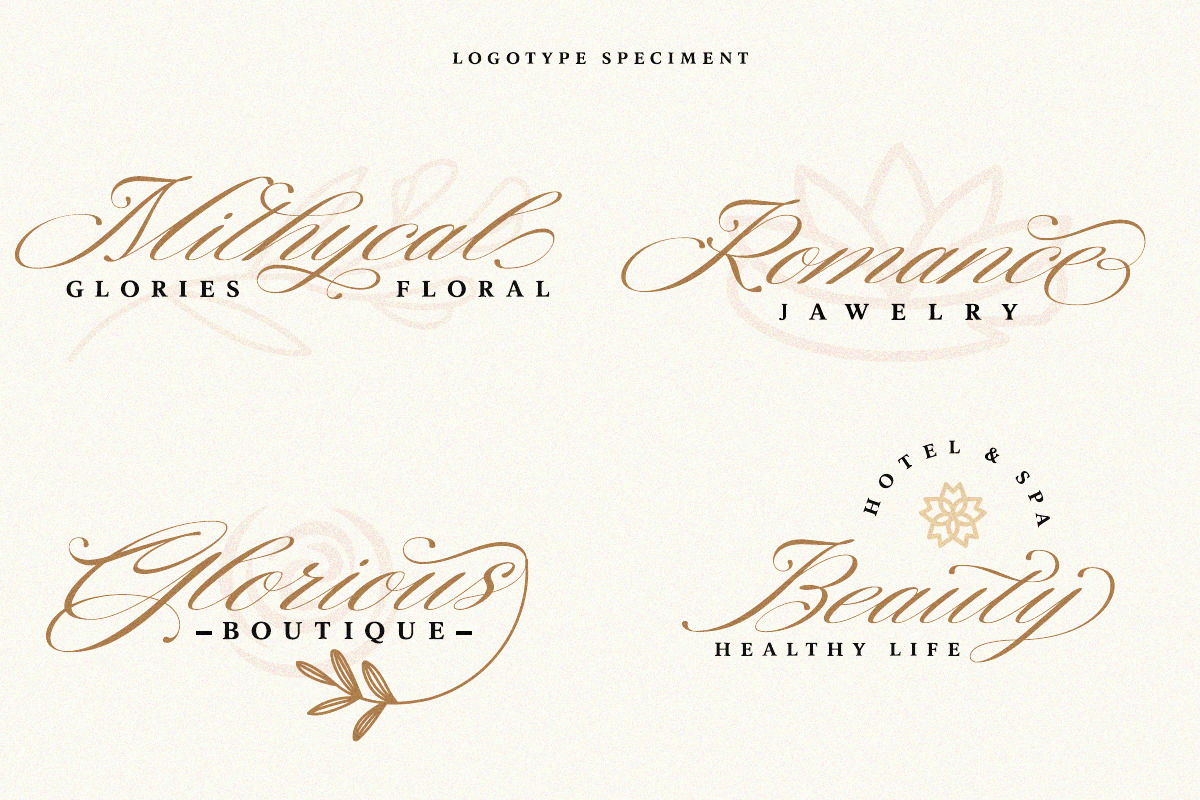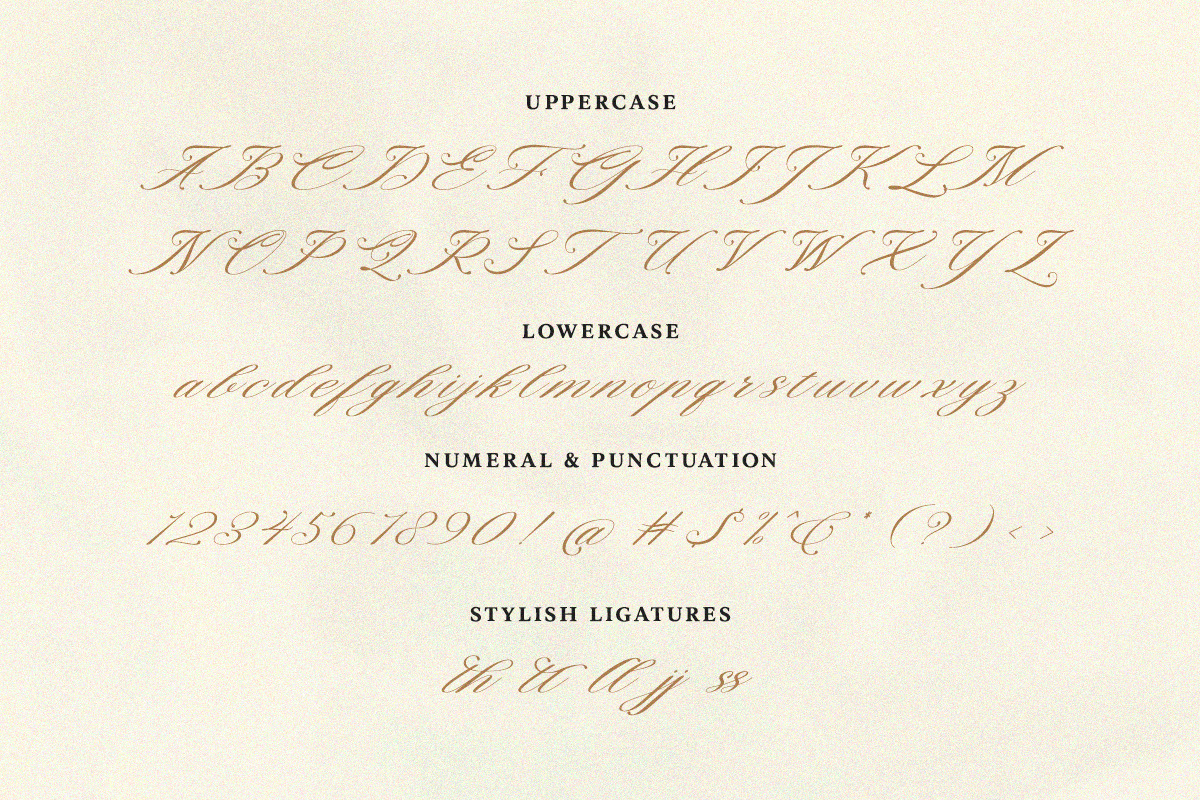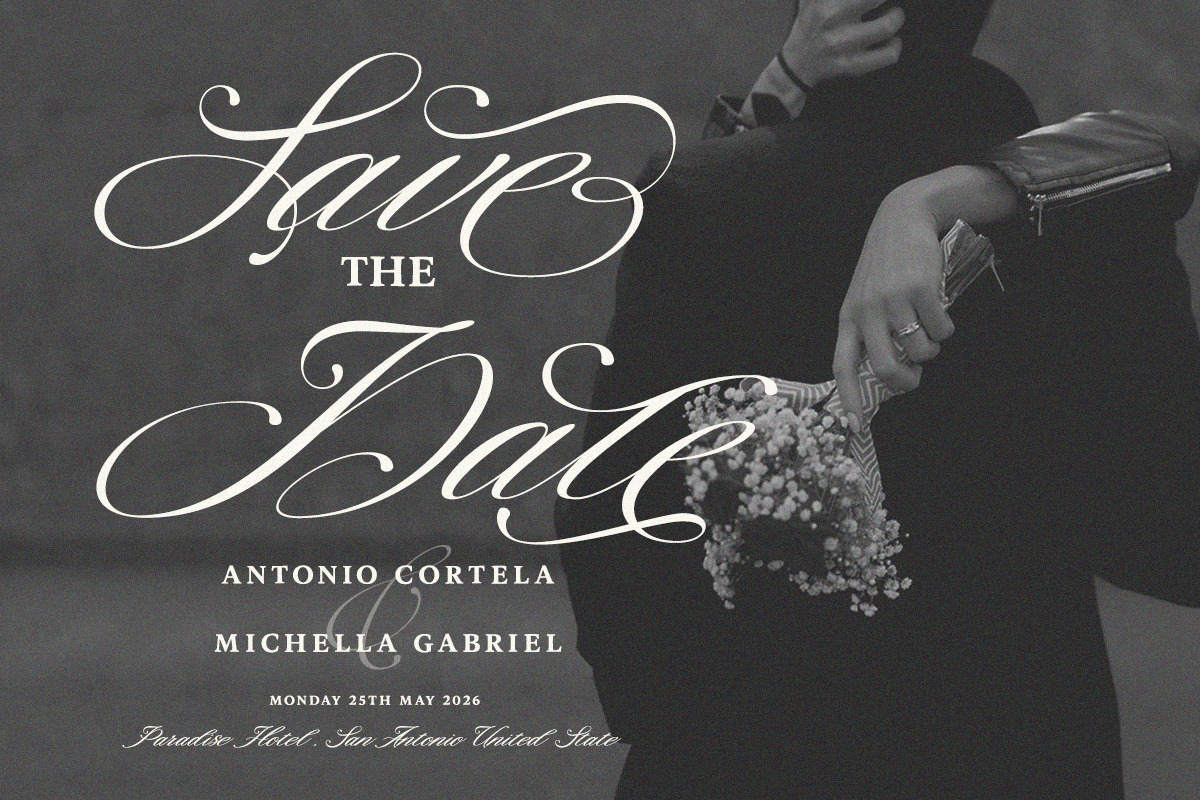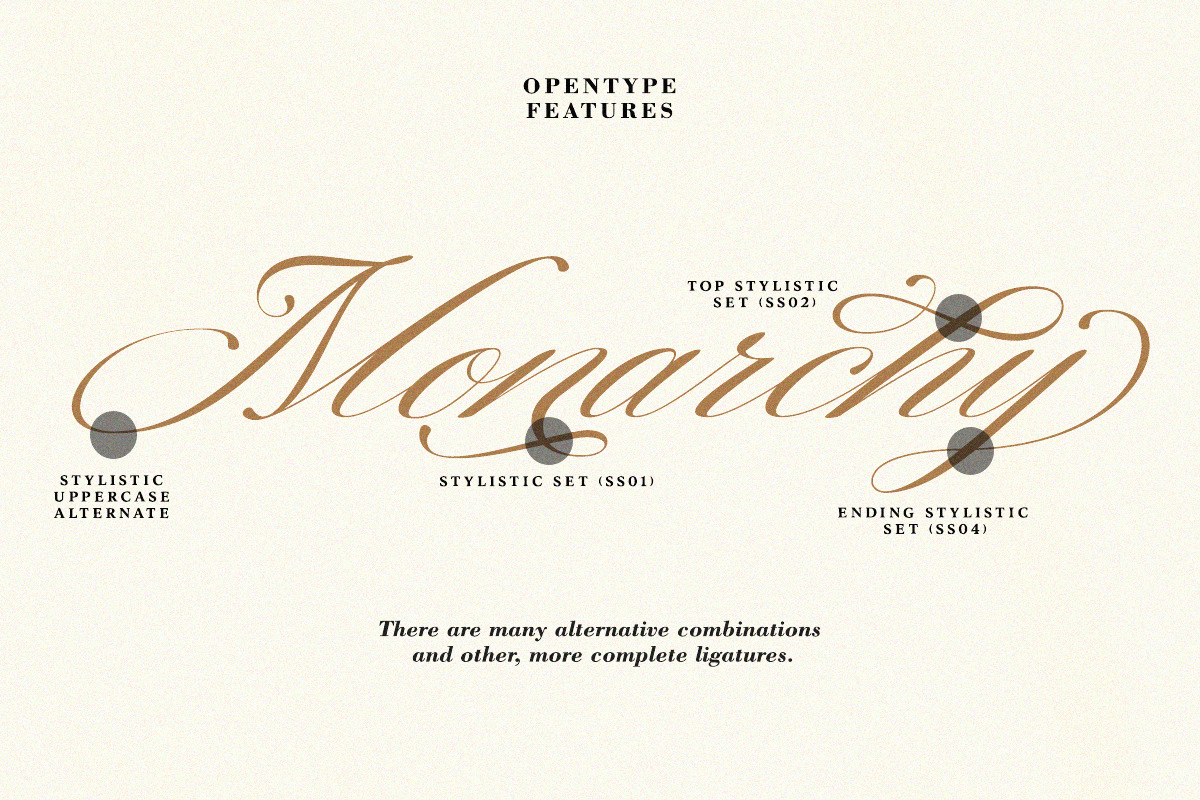
Monarchy Script
Monarchy Script is a sophisticated and timeless script font, perfect for adding a touch of elegance to projects like brand identities, elegant invitations, product labels, apparel designs, and more.
With stylistic alternates and unique ligatures integrated into its OpenType features, this font offers incredible flexibility and creative freedom for any design.